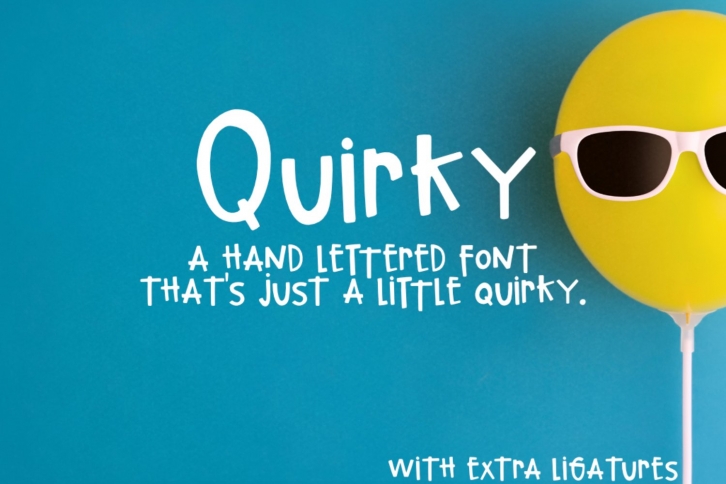
Quirky Hand-lettered is a beautiful font that was designed by Groovy Journal. It's a great choice for designers and creatives who need such a font. It was released on July 18, 2020 and the file size is 14.71 MB. Quirky Hand-lettered may give a more youthful, expressive and casual look to your project. It is a very beautiful, refined, elegant, and high-quality font.